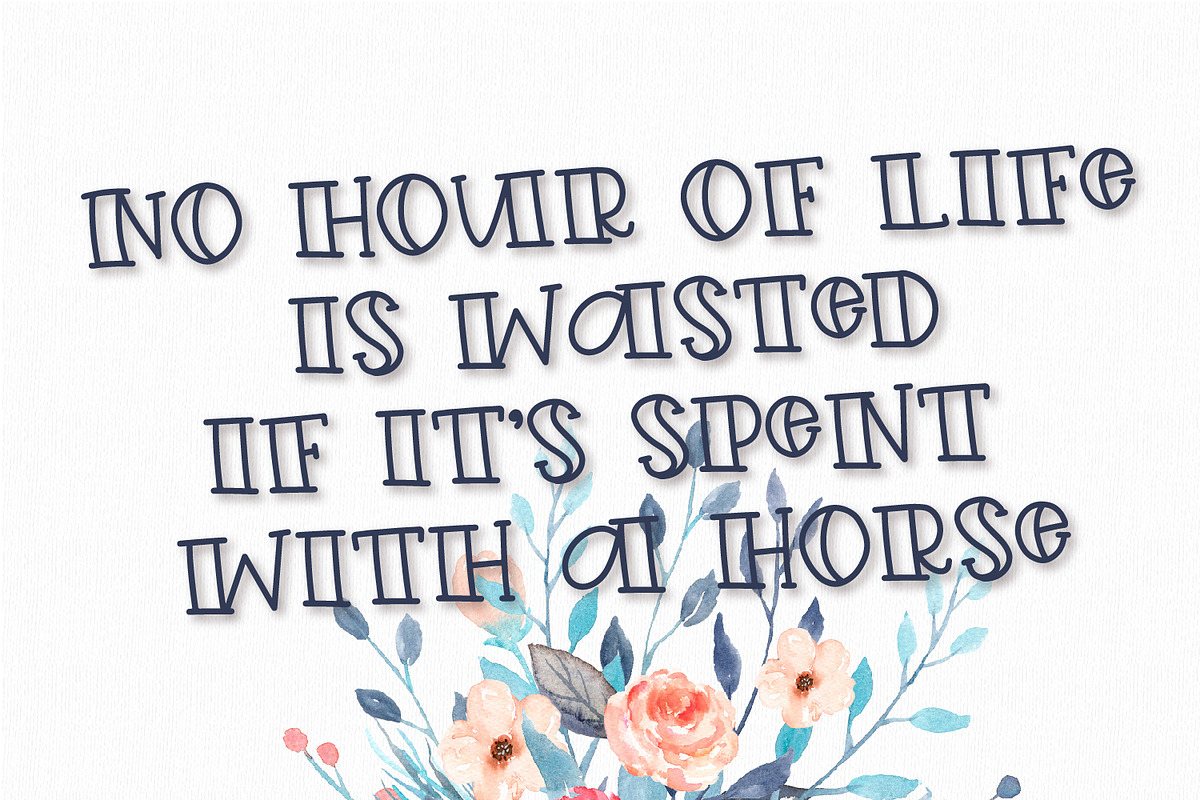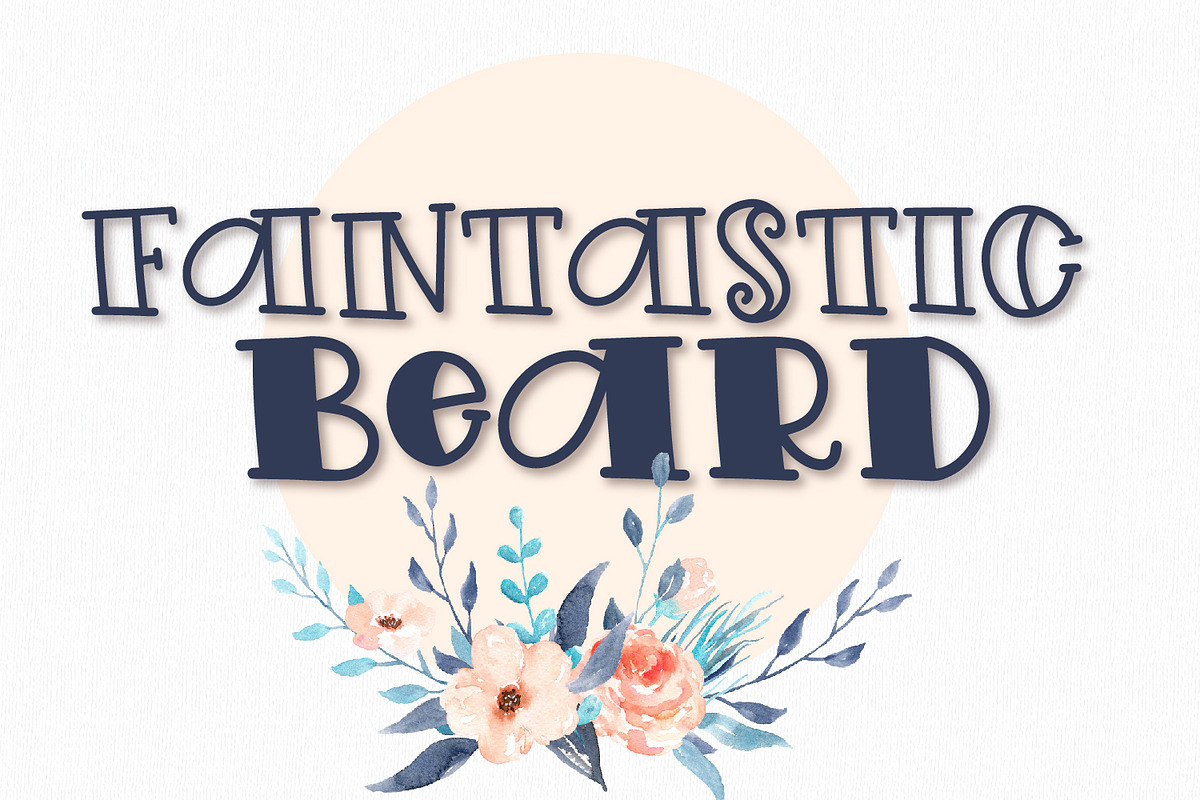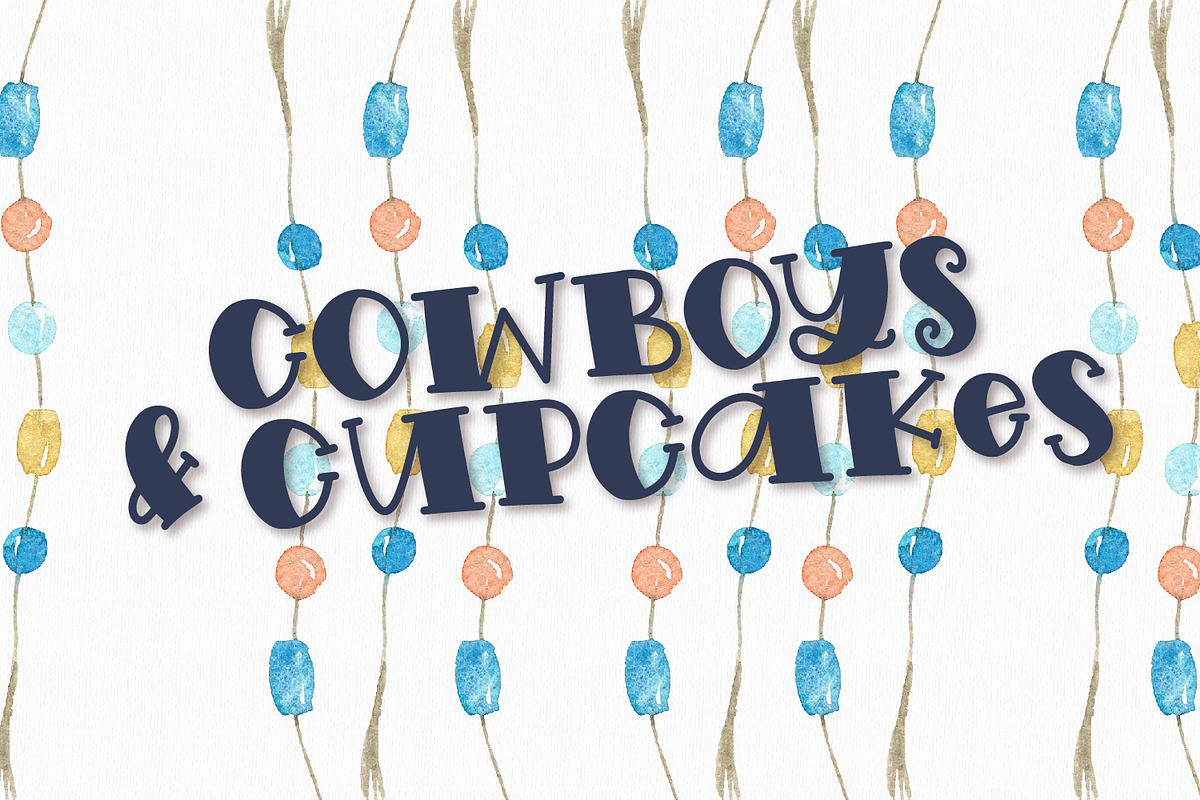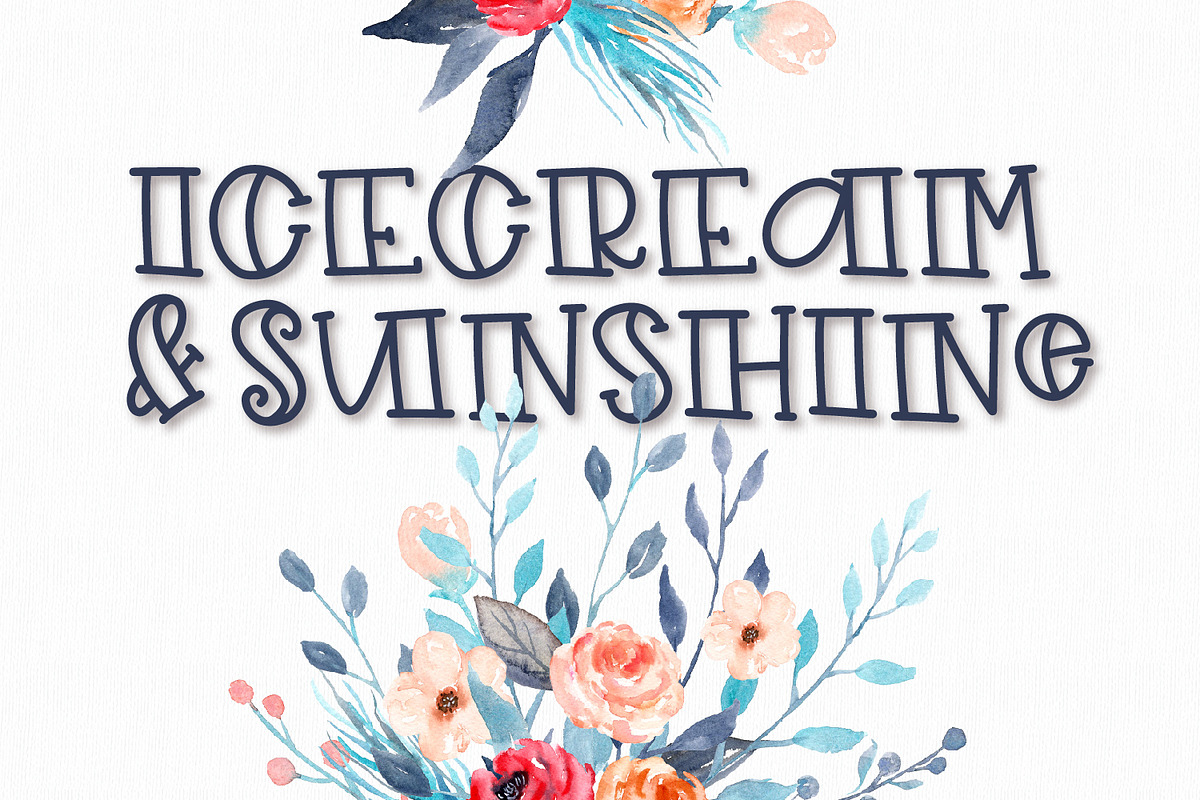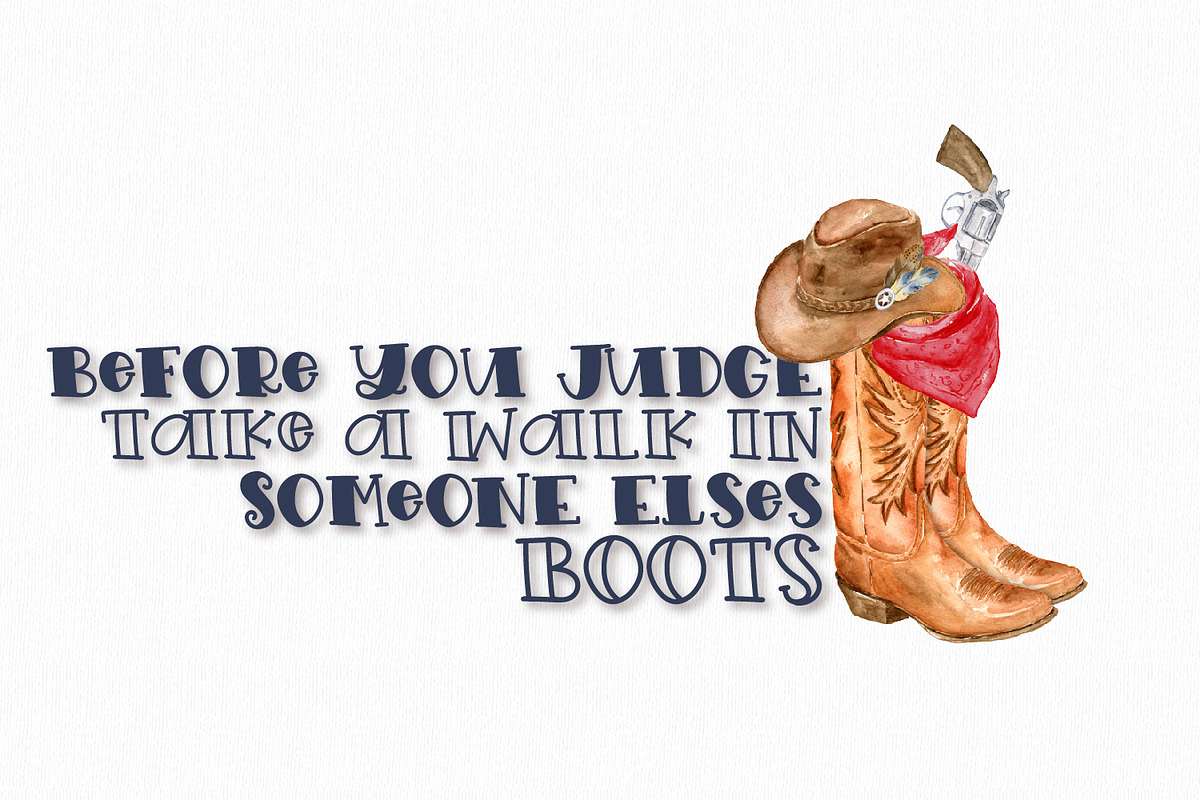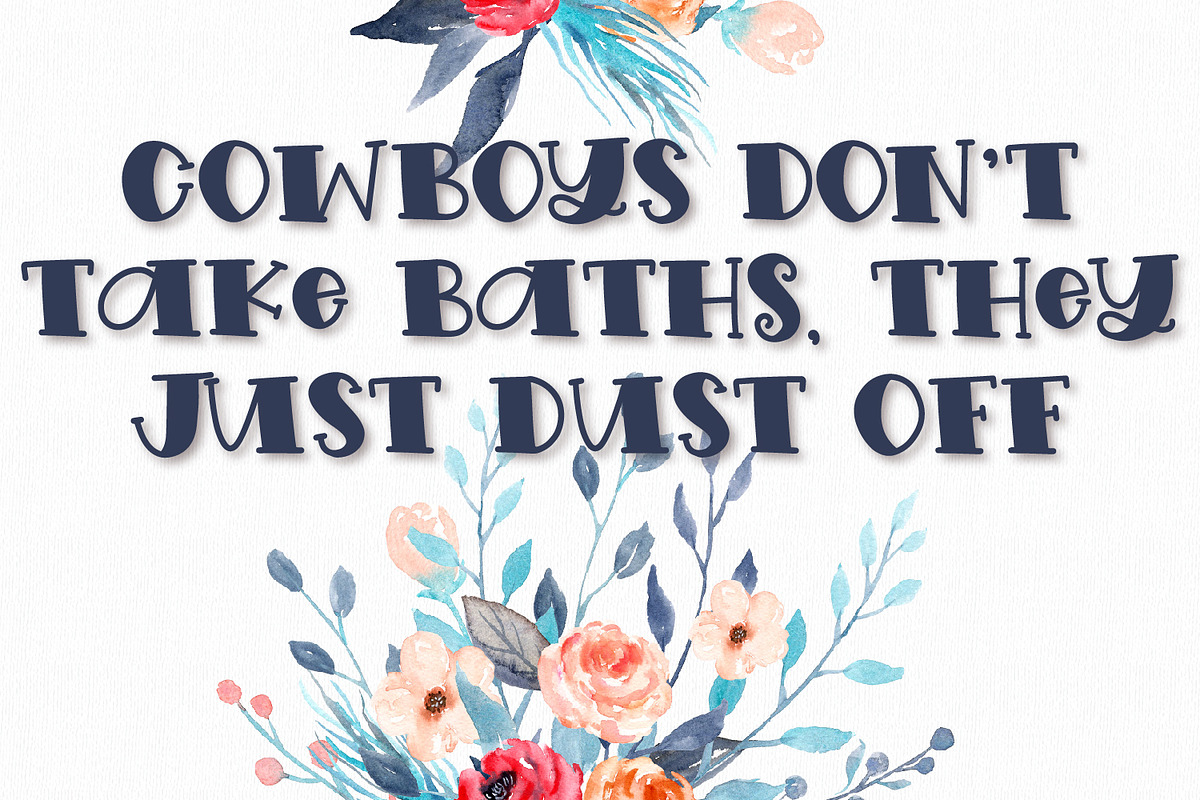
Fairly Certain - Handmade Font Duo
Why Fairly Certain - Handmade Font Duo is worth a look
Fairly Certain - Handmade Font Duo by CraftyLittleNodes fits naturally into Branding, posters, packaging, typography.